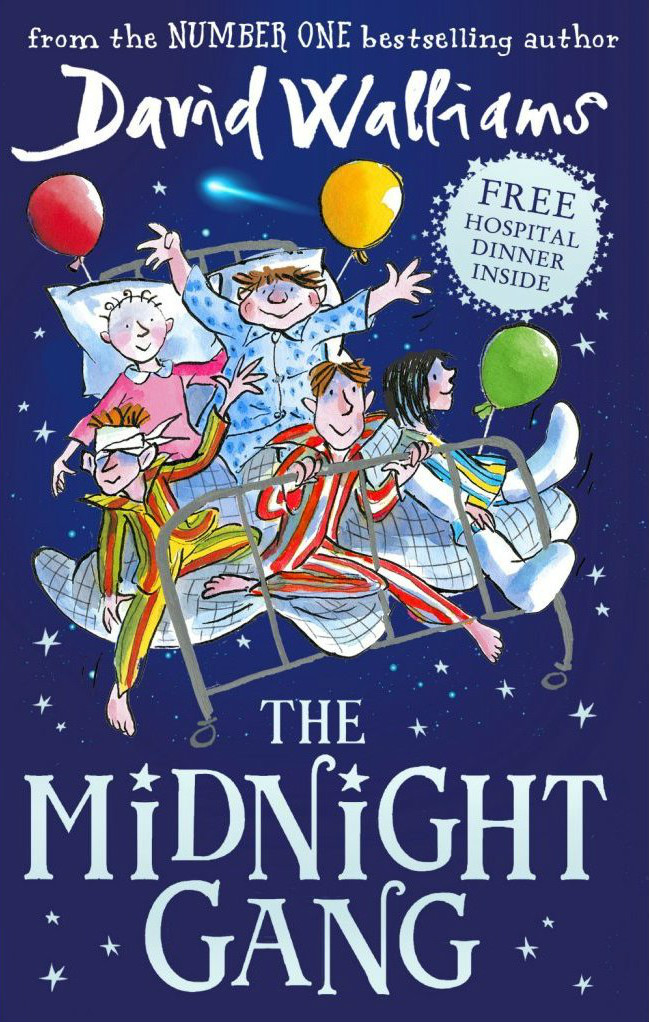
The Midnight Gang Font
AdventureThe Midnight Gang, a bestselling children's book by David Walliams and Tony Ross, is the story of five children as they embark on a series of adventures and pranks around the hospital at night.
The title's letters "N" and "A" on the book cover indicate that it is probably Birmingham New Street inspired by Paul James Lloyd. The title on a 19th-century railroad map that was hand-lettered served as the inspiration for the typeface. It is a family of three decorative faces that are full of late Victorian charm and open-type qualities.